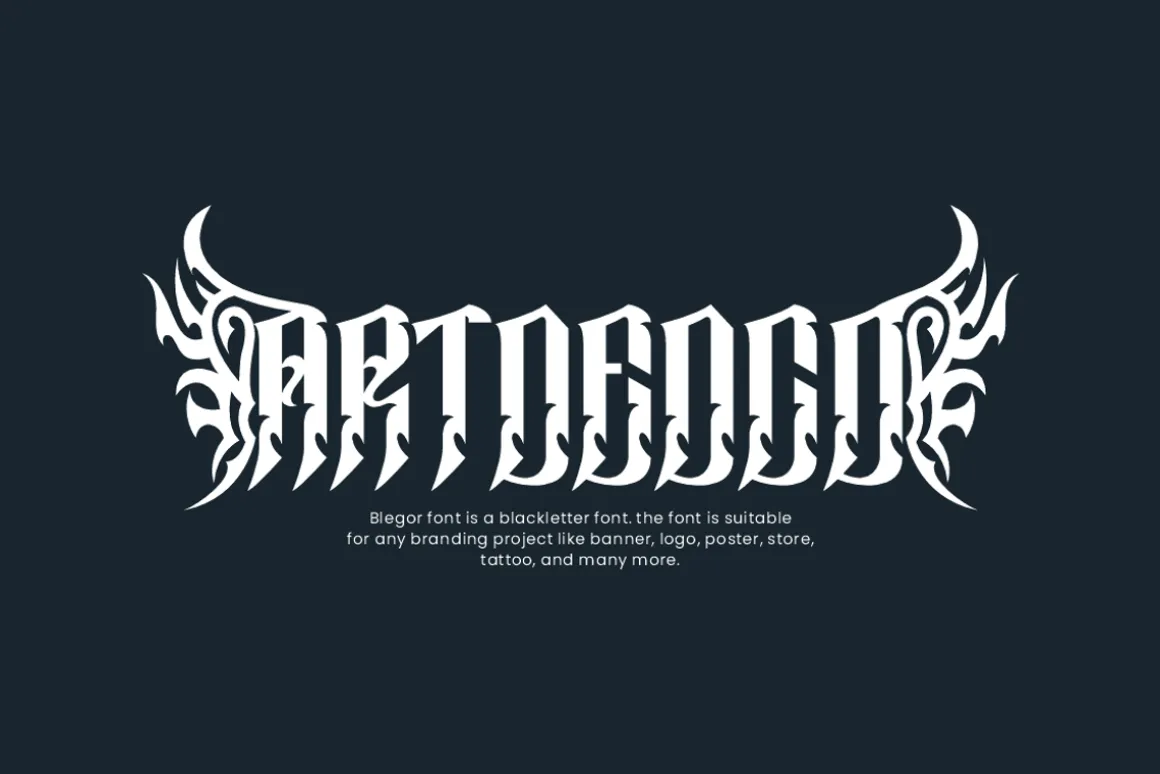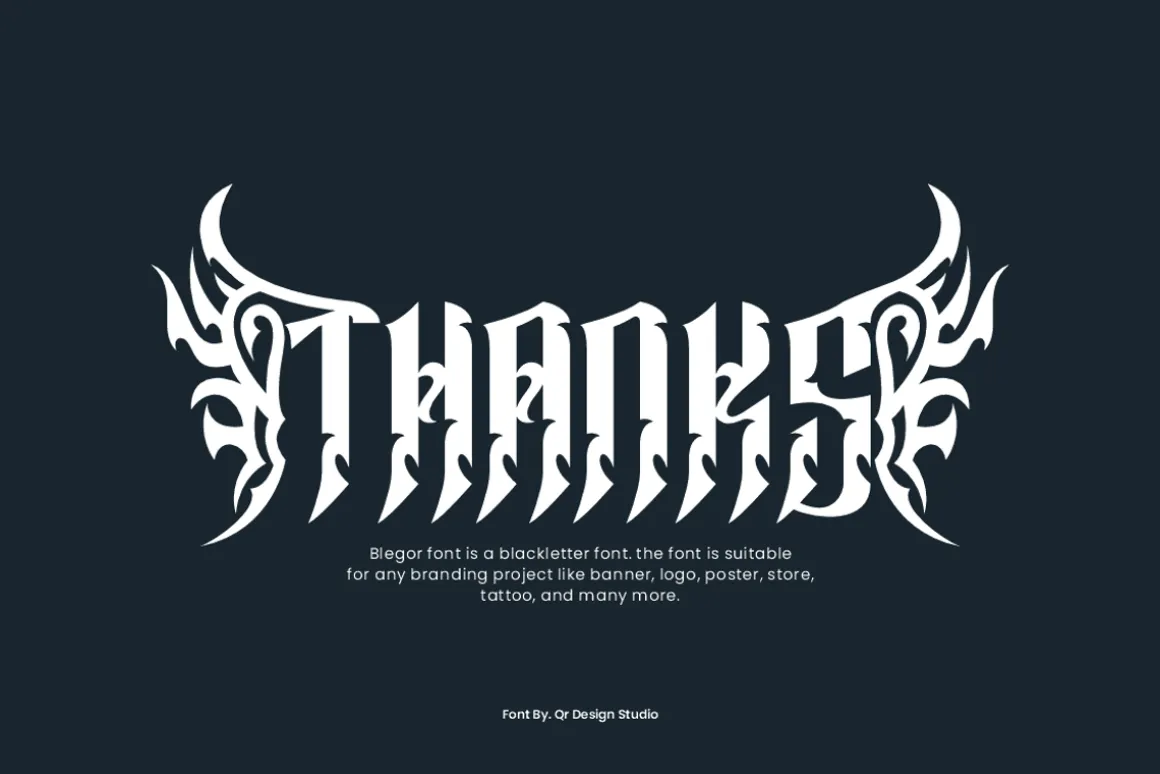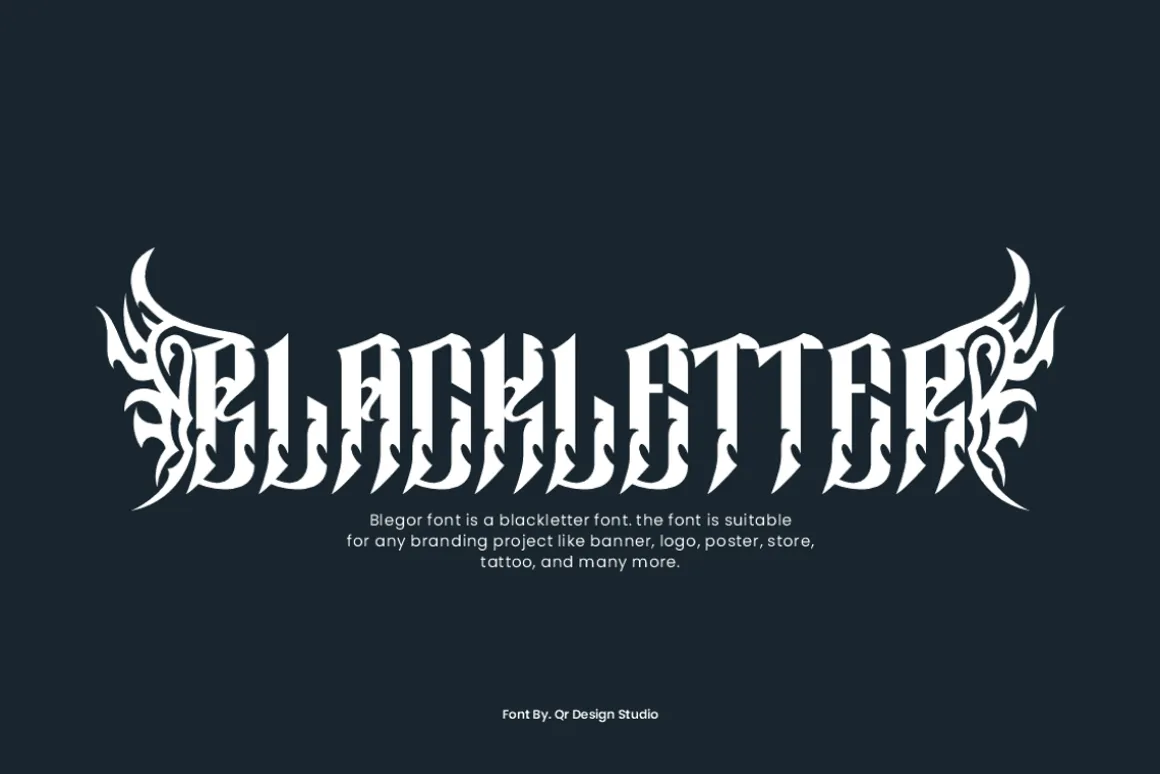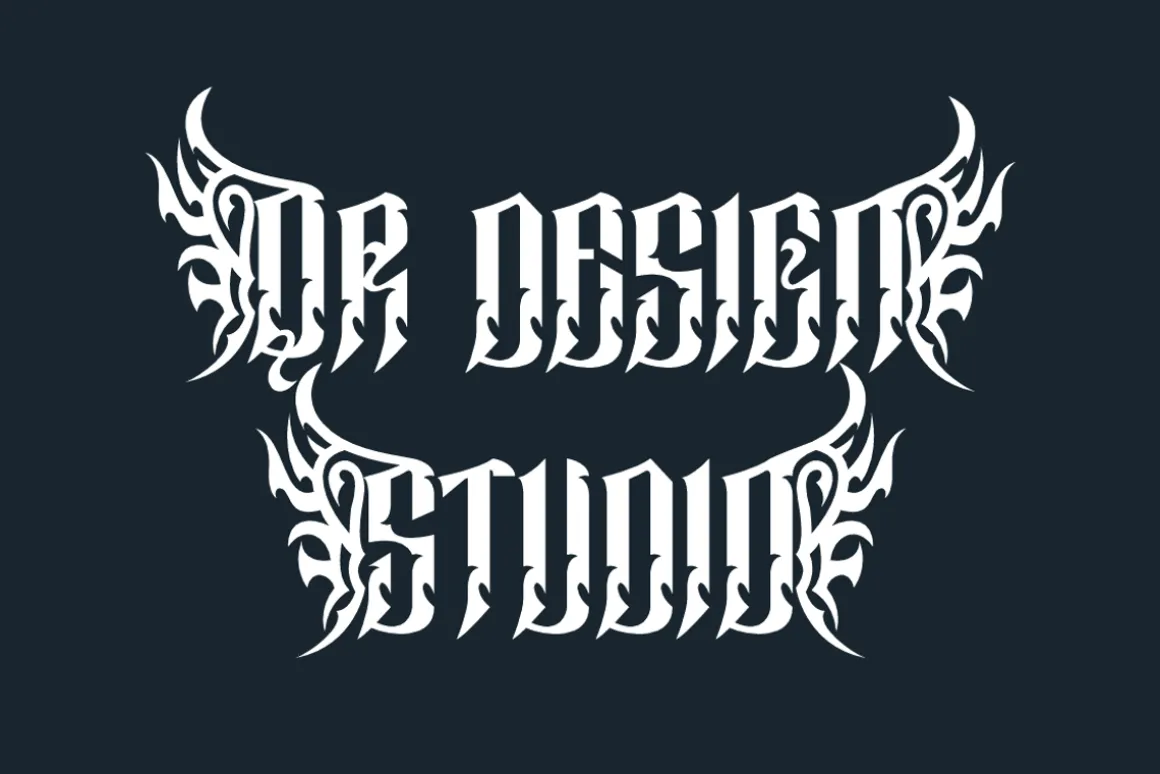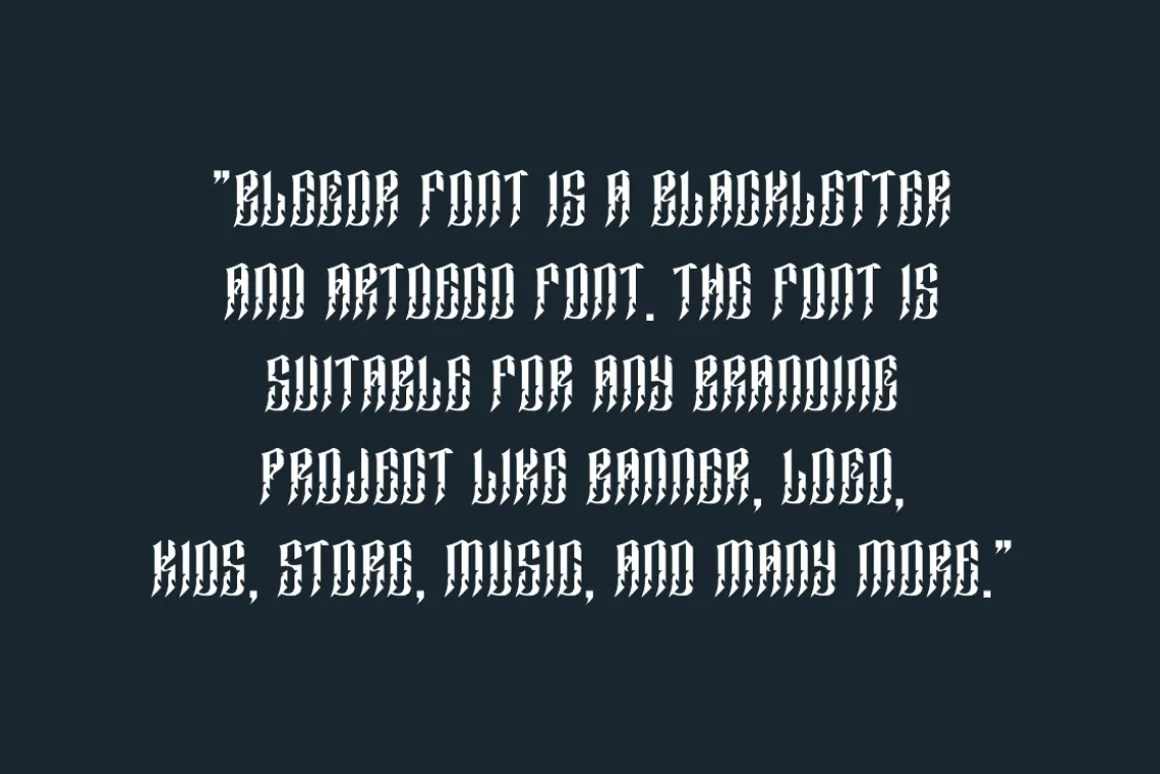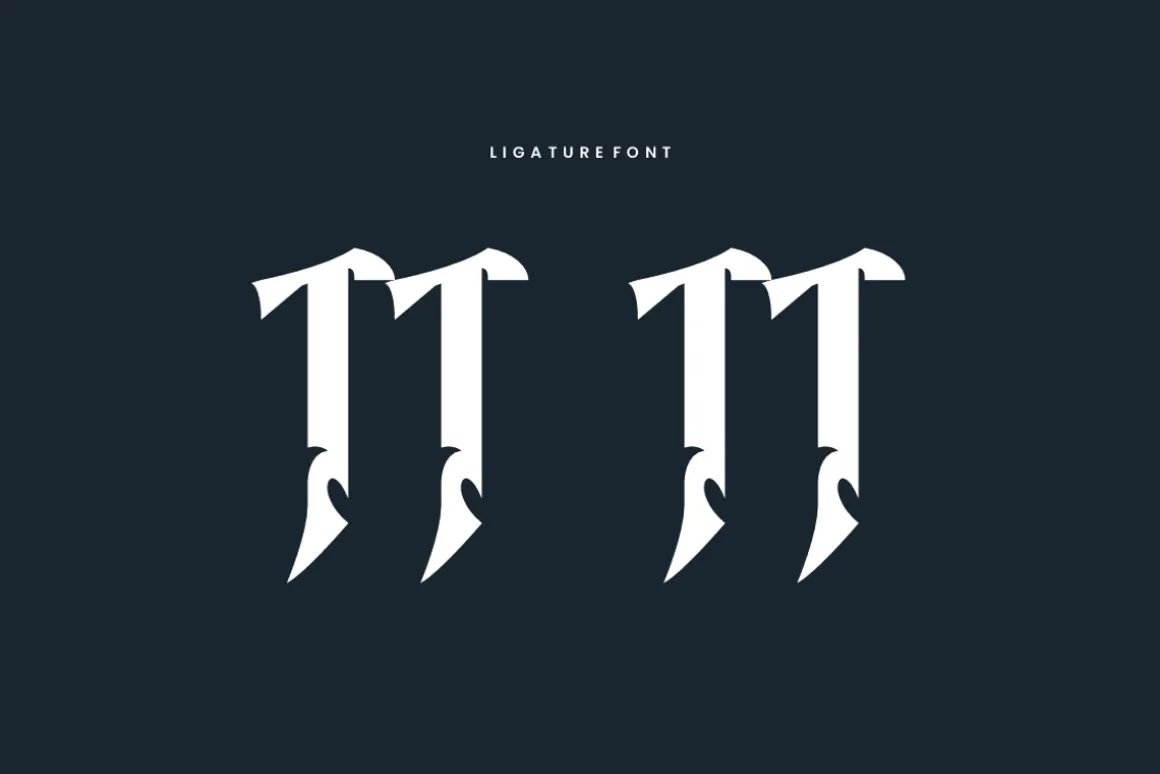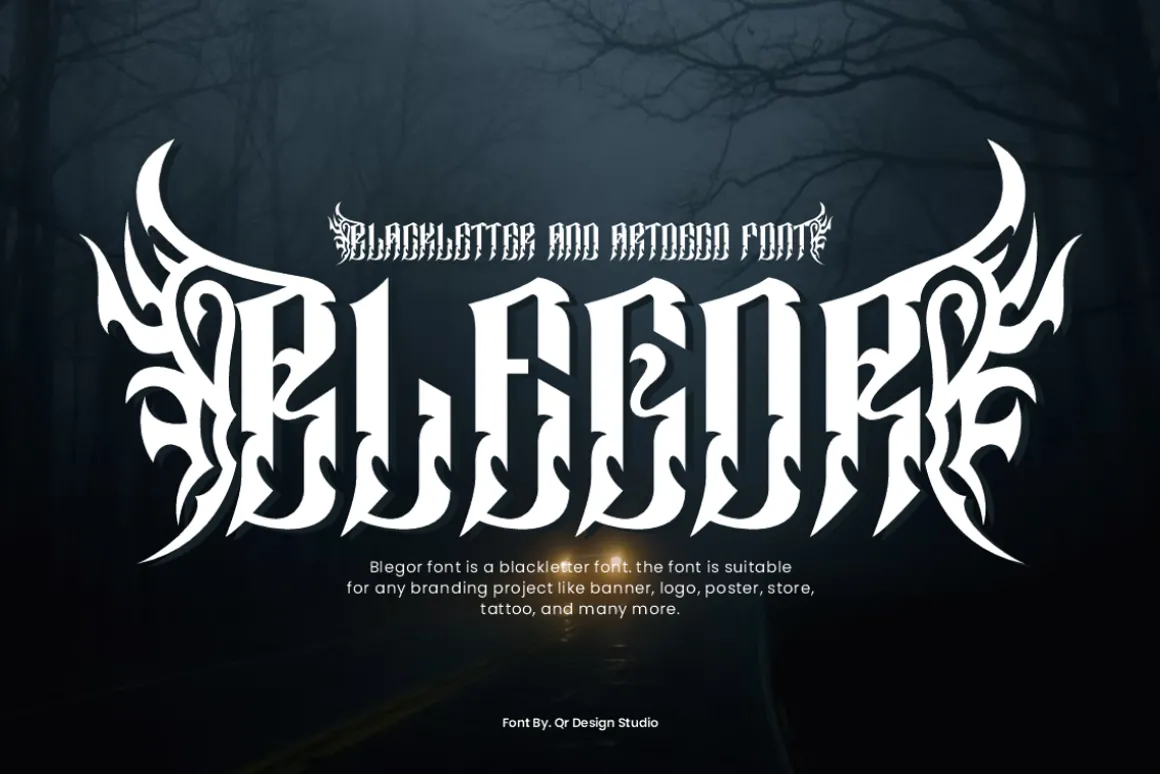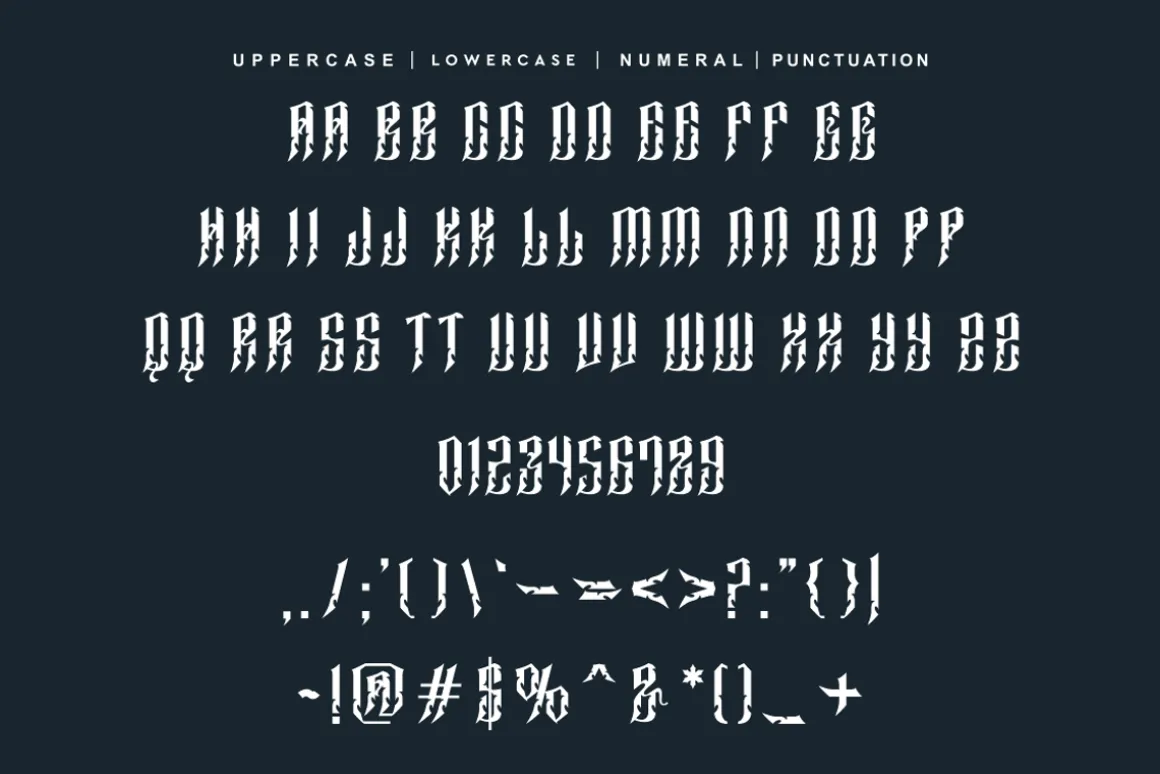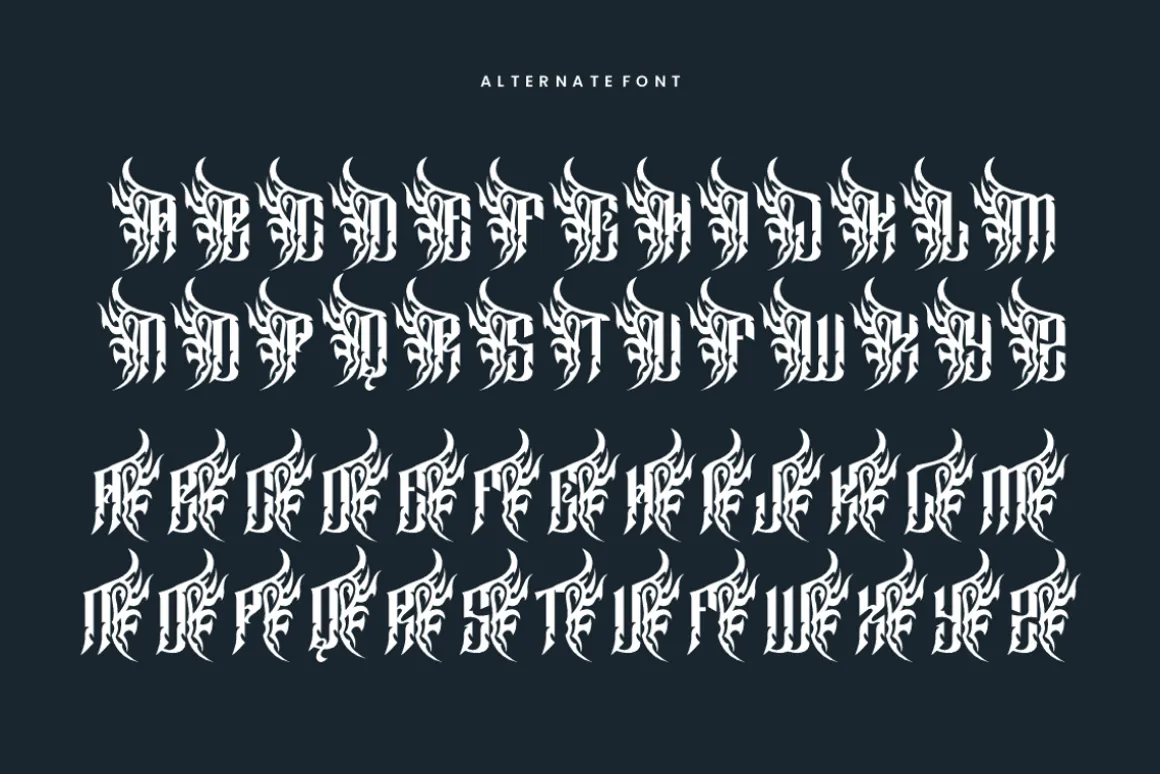
Blegor Font is a blackletter and authentic display font.The font is suitable for any branding project like poster, logo, sport, and many more.Outstanding in a wide range of contexts.